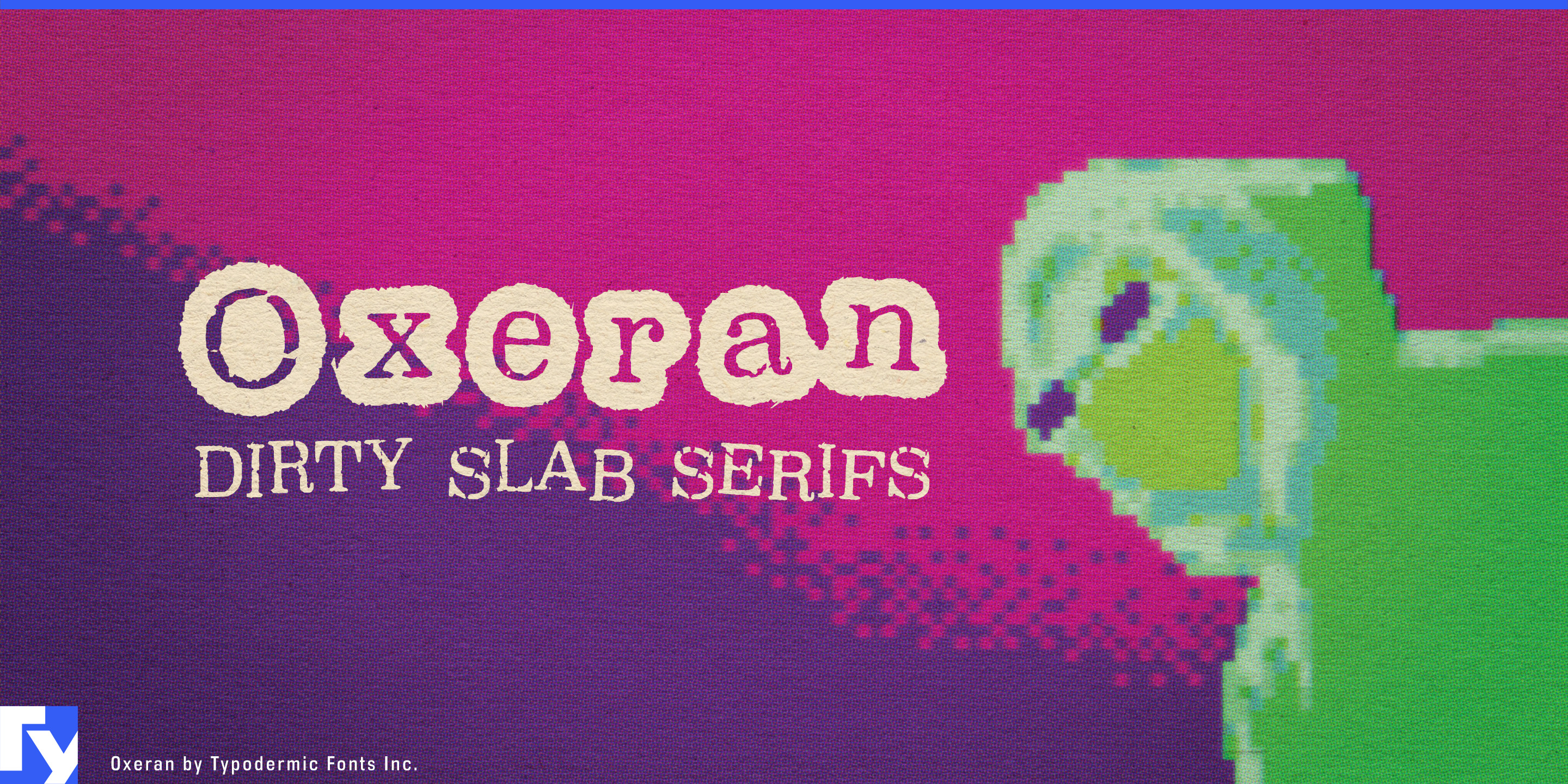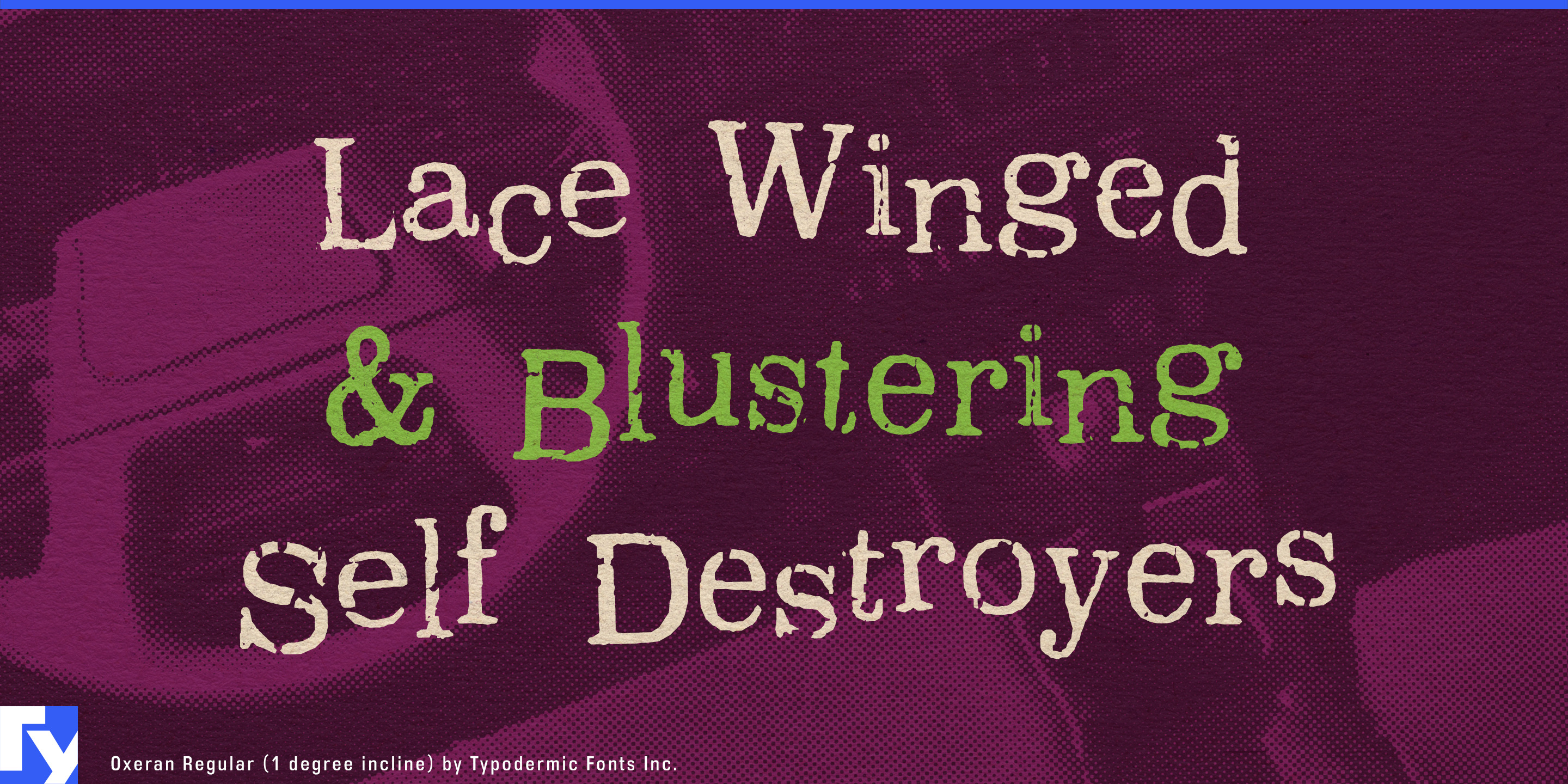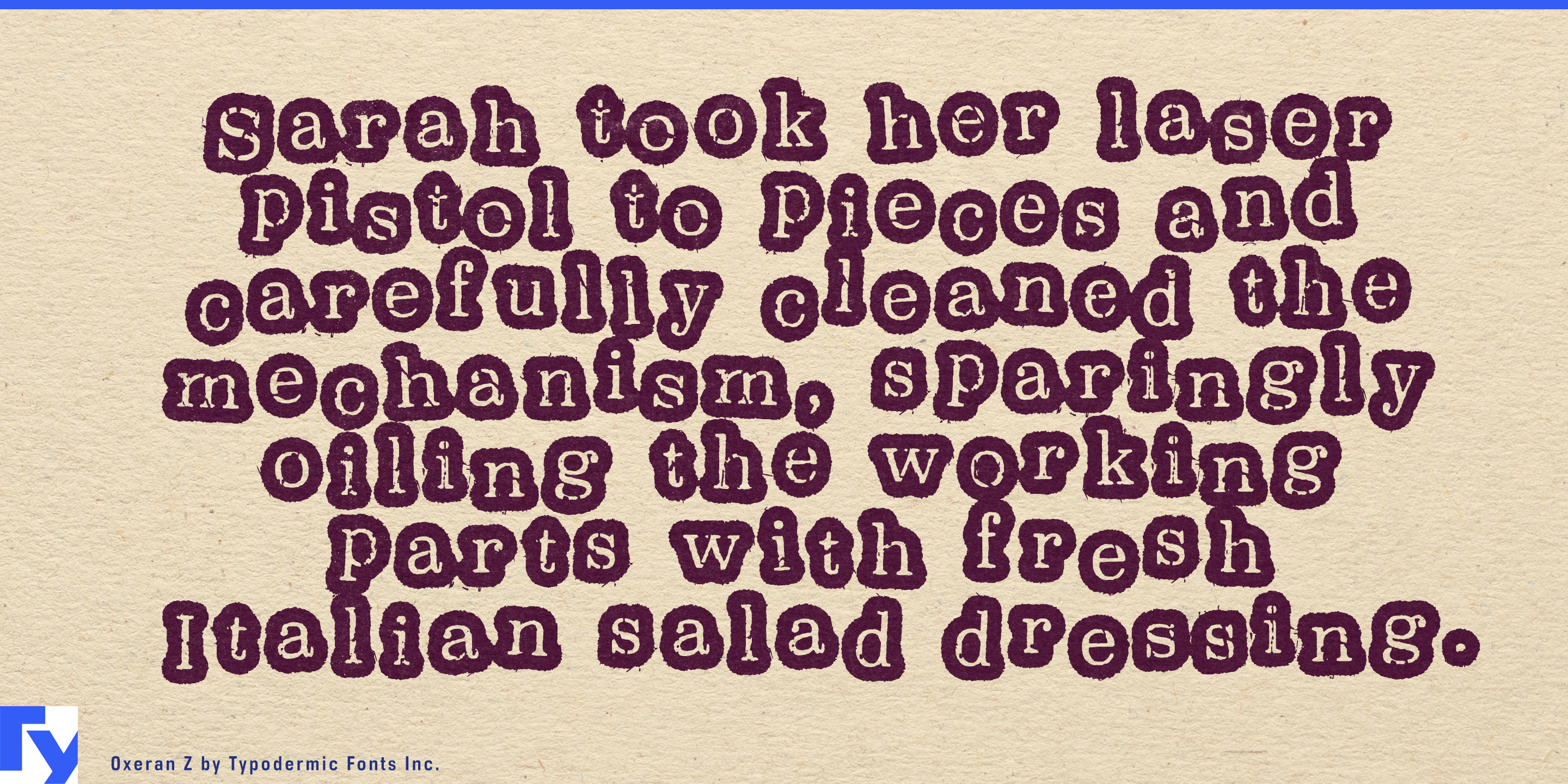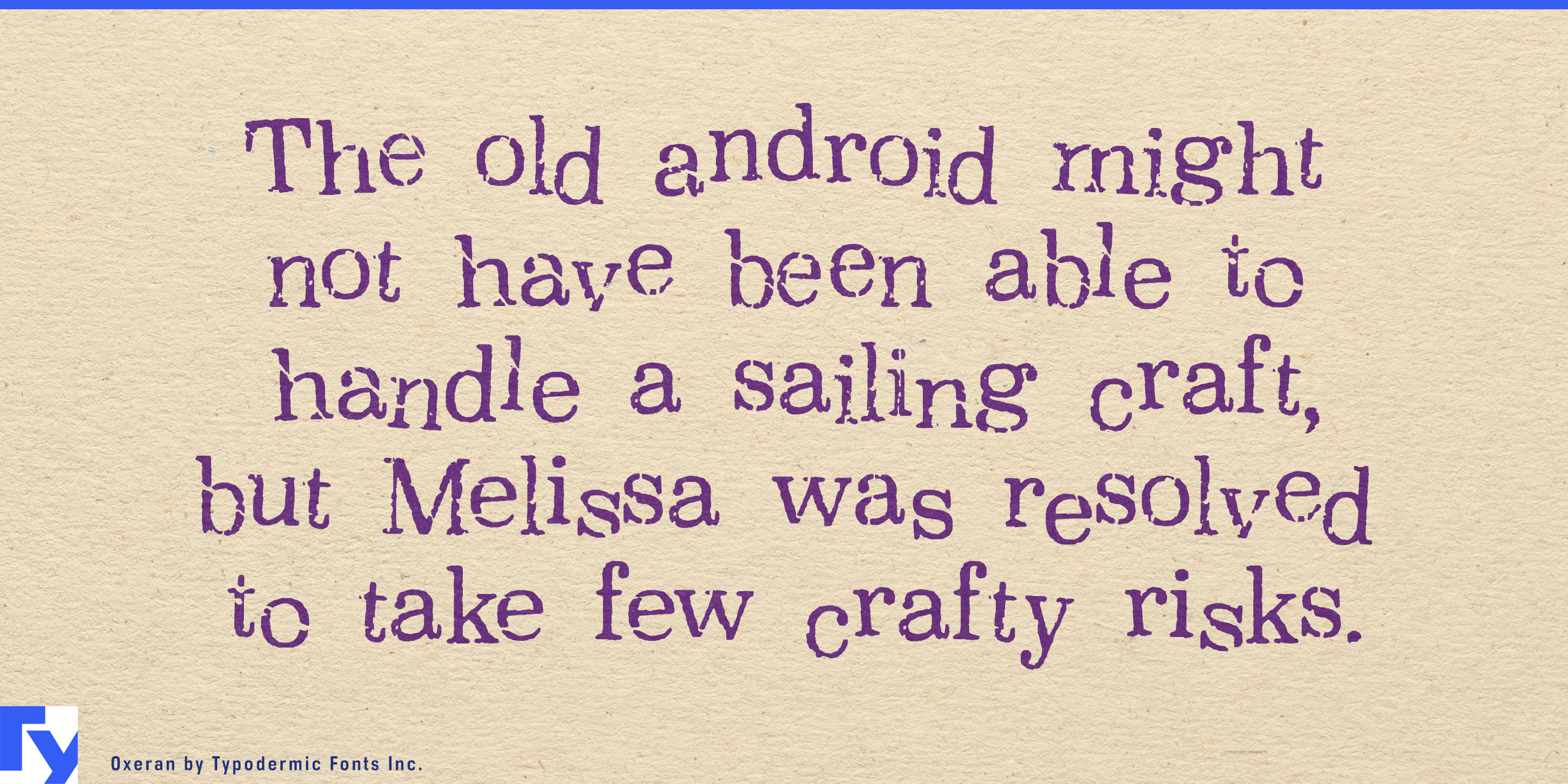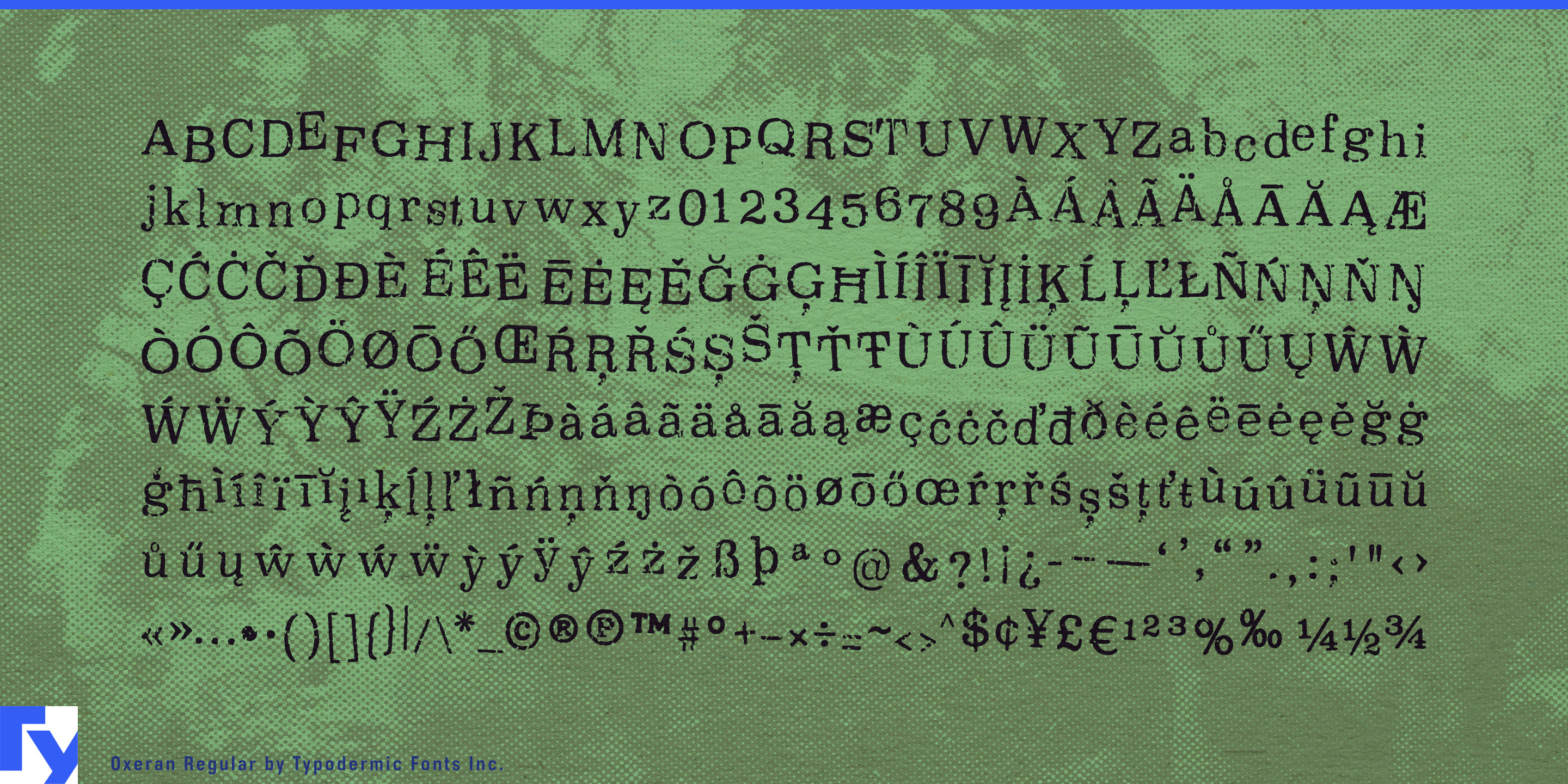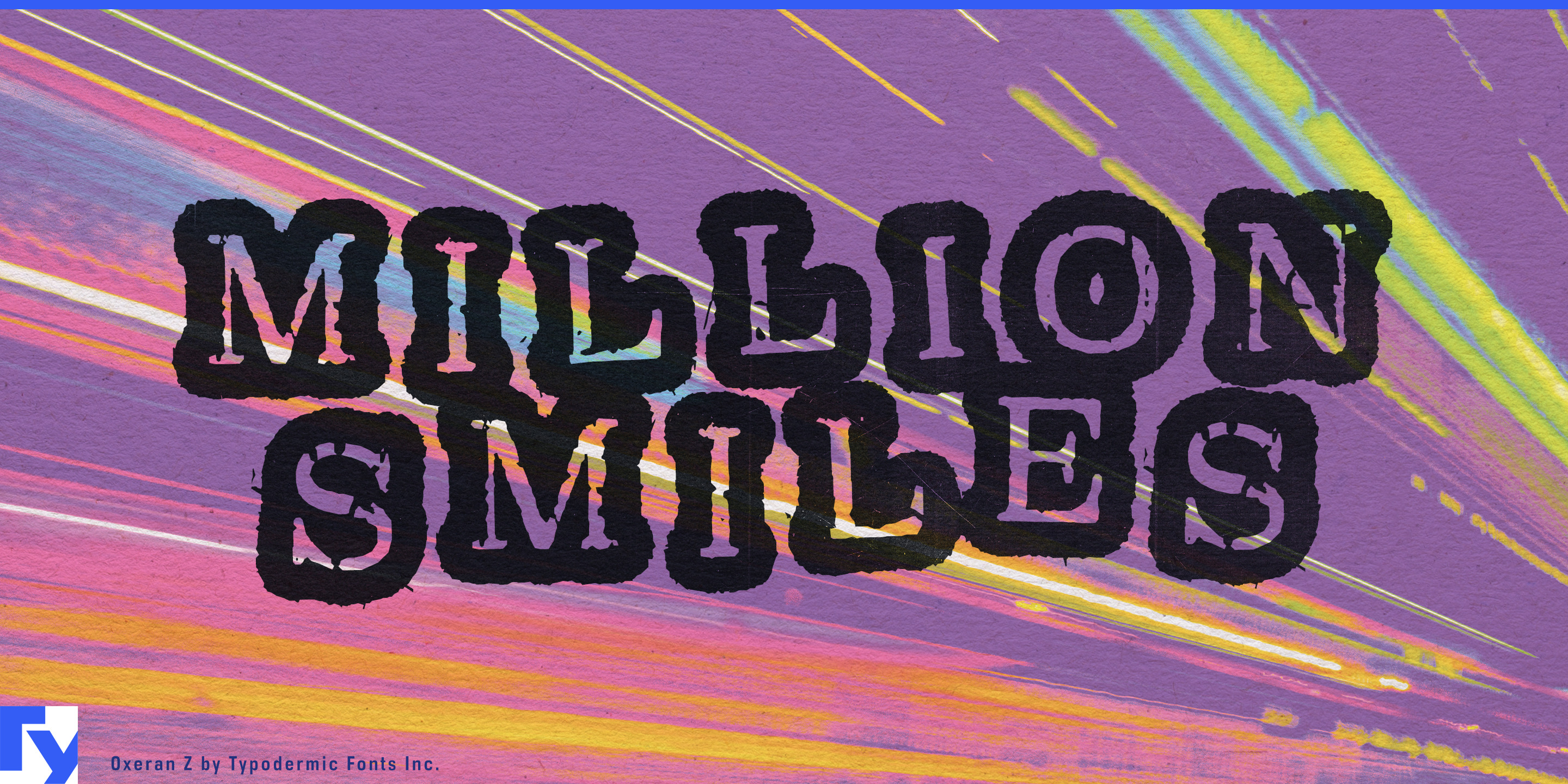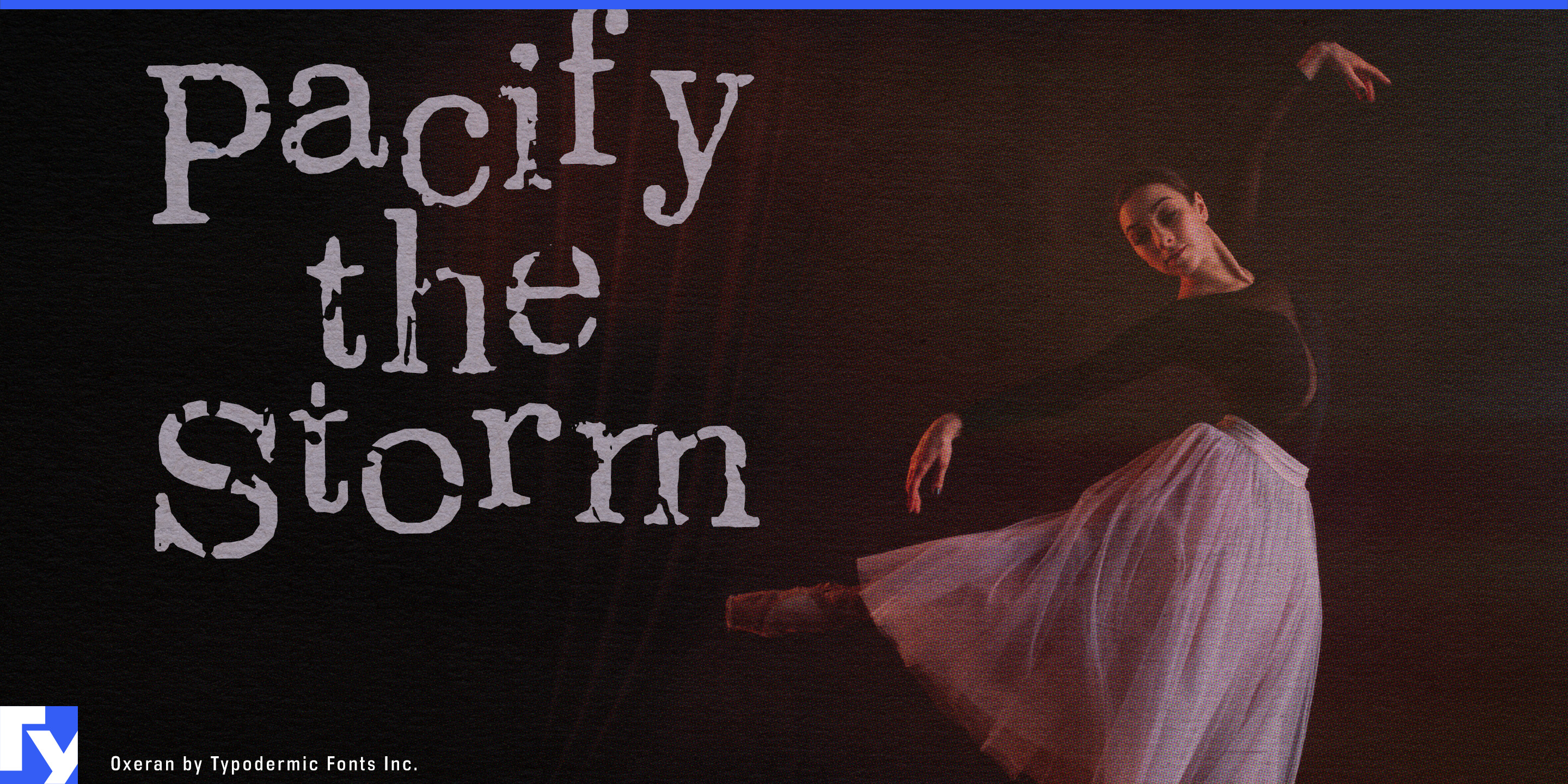
Oxeran
Distressed type often solves the headline and creates a new problem everywhere else. Once a layout needs a second line, a model name, an event date, or short supporting copy, heavy damage can start competing with the message. Oxeran keeps the abrasion while giving it a sturdier structure to work with.
Built on Clarendon proportions and familiar slab-serif forms, Oxeran remains recognizable beneath its rough edges, scuffs, and irregular surface. The regular style keeps the texture relatively open, making it useful for substantial headlines, product names, event information, and short promotional copy. Oxeran Z pushes the treatment much harder, producing a darker, rougher display style for compact titles and focal words. Used together, the two styles can create a complete distressed hierarchy instead of forcing one extreme treatment across the entire design. Ligature alternates introduce variation in common letter combinations, helping repeated shapes avoid an obvious mechanical pattern.
That combination works especially well for products designed to age visibly. Raw denim, welted boots, waxed-canvas outerwear, utility bags, work gloves, forged tools, motorcycle parts, and workshop equipment can use Oxeran for collection names, hangtags, boot-box graphics, dealer displays, and campaign headlines. The wear feels appropriate around materials expected to acquire scratches, creases, repairs, and patina.
Oxeran also suits sports where the equipment comes back dirty. Enduro, motocross, rally raid, downhill mountain biking, boxing, MMA, and strongman events can use Oxeran Z for race names, fighter surnames, and major matchup graphics while Oxeran handles course names, sponsor headings, merchandise, pit banners, and supporting display text.
For entertainment work, Oxeran is a natural fit for weird-West games, frontier horror, abandoned mining settlements, alternate histories, and machinery-heavy survival worlds. Its Clarendon ancestry provides a connection to old commercial printing, while the damaged surface shifts that language toward something weathered, reused, or left behind. Titles, chapter cards, settlement names, faction headings, wanted notices, and in-world printed artifacts can all draw from the same visual system.
Against immaculate fashion or footwear photography, Oxeran can work for a different reason. Oversized collection names, editorial headlines, lookbook dividers, and campaign phrases gain tension from the contrast between polished imagery and battered typography.
Oxeran starts with letters tough enough to survive the treatment. That underlying structure is what lets the family move beyond a single scarred headline and into a broader visual system.